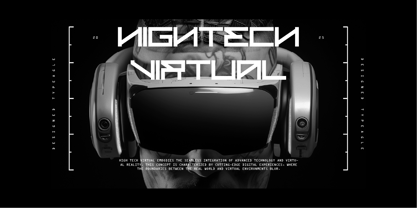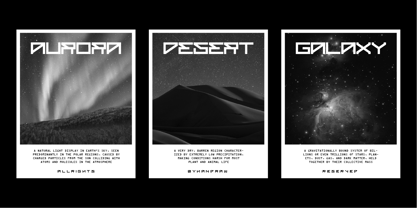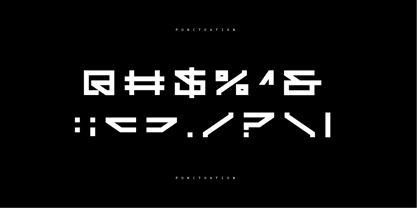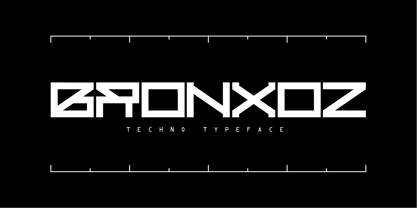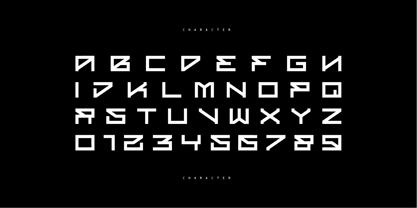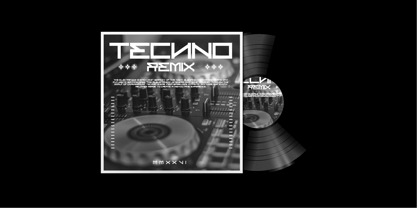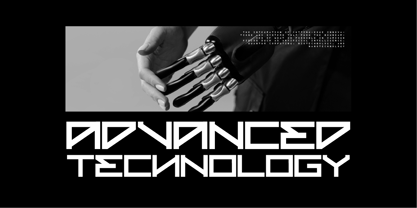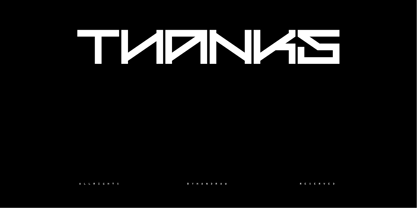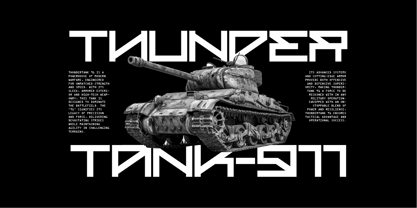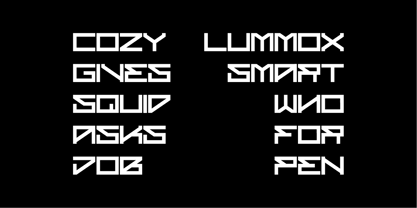
Bronxoz
Bronxoz Is a sleek, cutting-edge typeface designed to capture the essence of the future. With sharp lines and angular forms, it evokes a sense of innovation and forward-thinking. The font’s geometric structure balances modernity and readability, making it perfect for technology, sci-fi, and digital-themed projects. Its bold presence stands out in both large headers and detailed designs, making it versatile for any contemporary design project.
Foundry: Typeagle
Typeagle is an Indonesian type design studio specializing in graphic design and futuristic display fonts. The studio focuses on creating distinctive typefaces that combine modern aesthetics, technological inspiration, and bold visual identities. Typeagle develops custom fonts designed for branding, posters, digital media, gaming, entertainment, and creative projects that require a strong futuristic character.